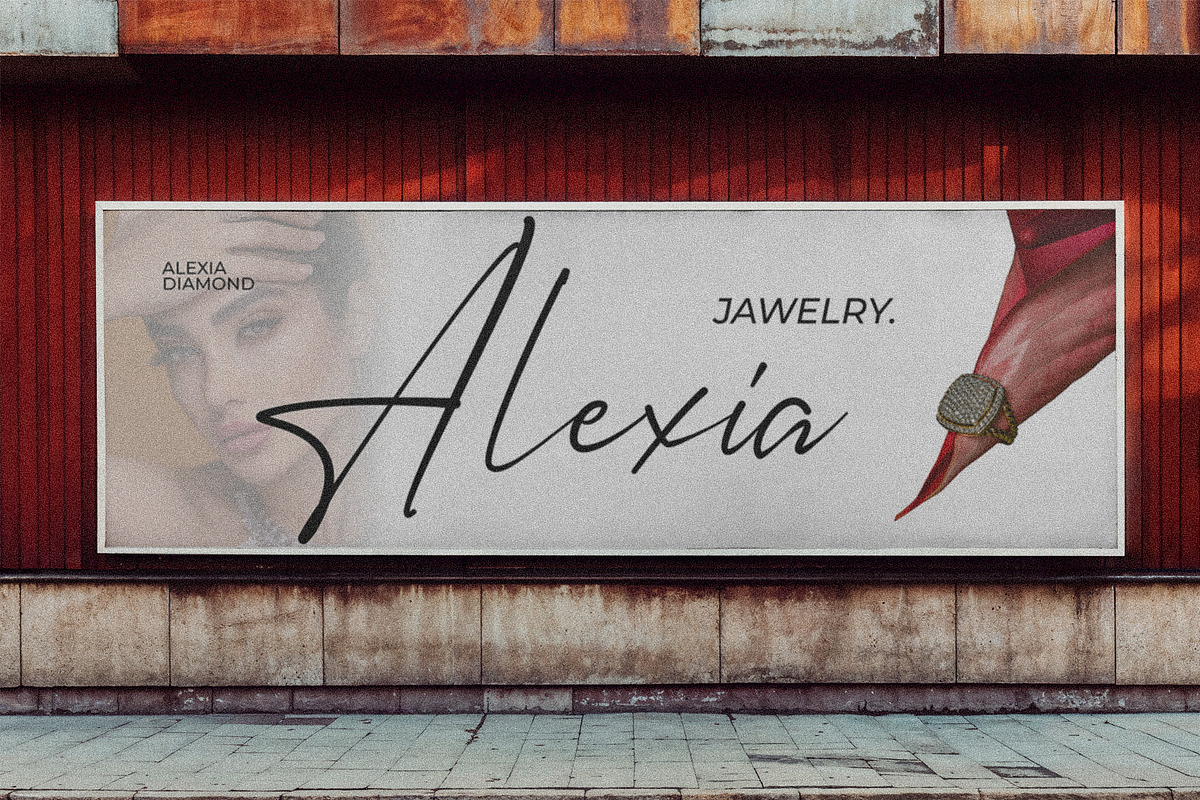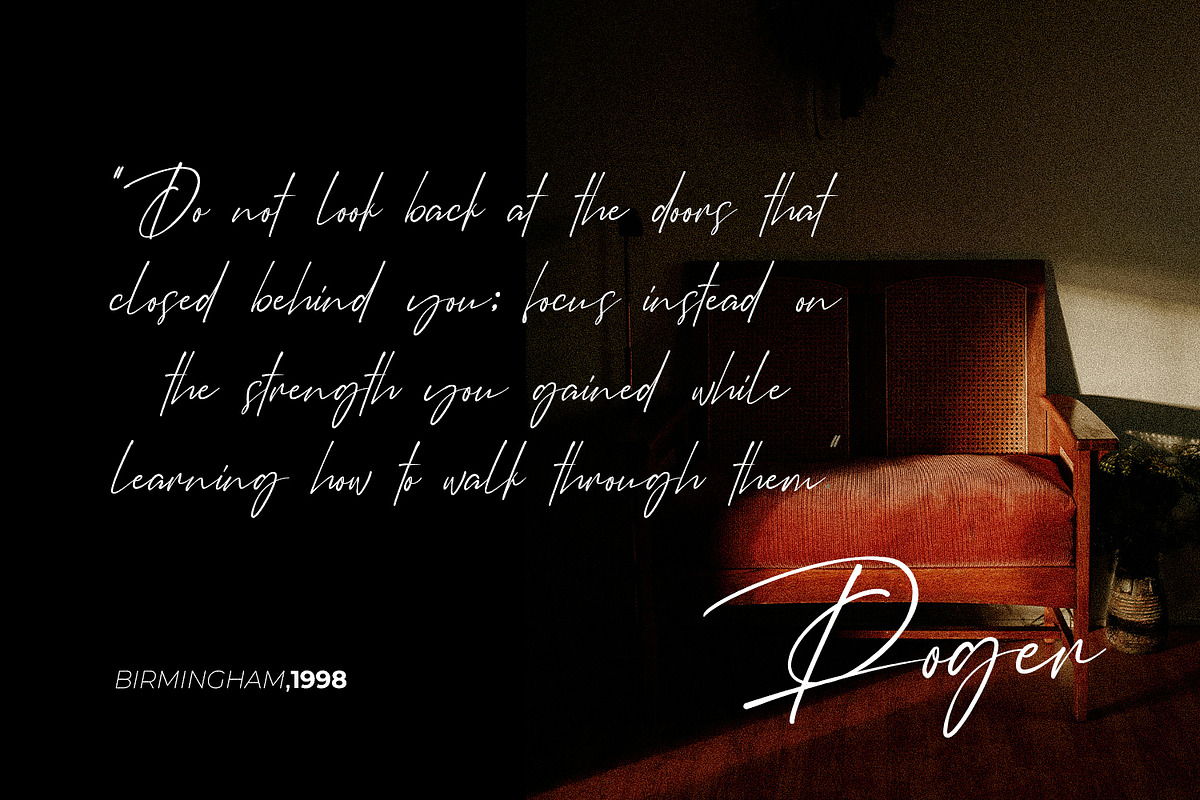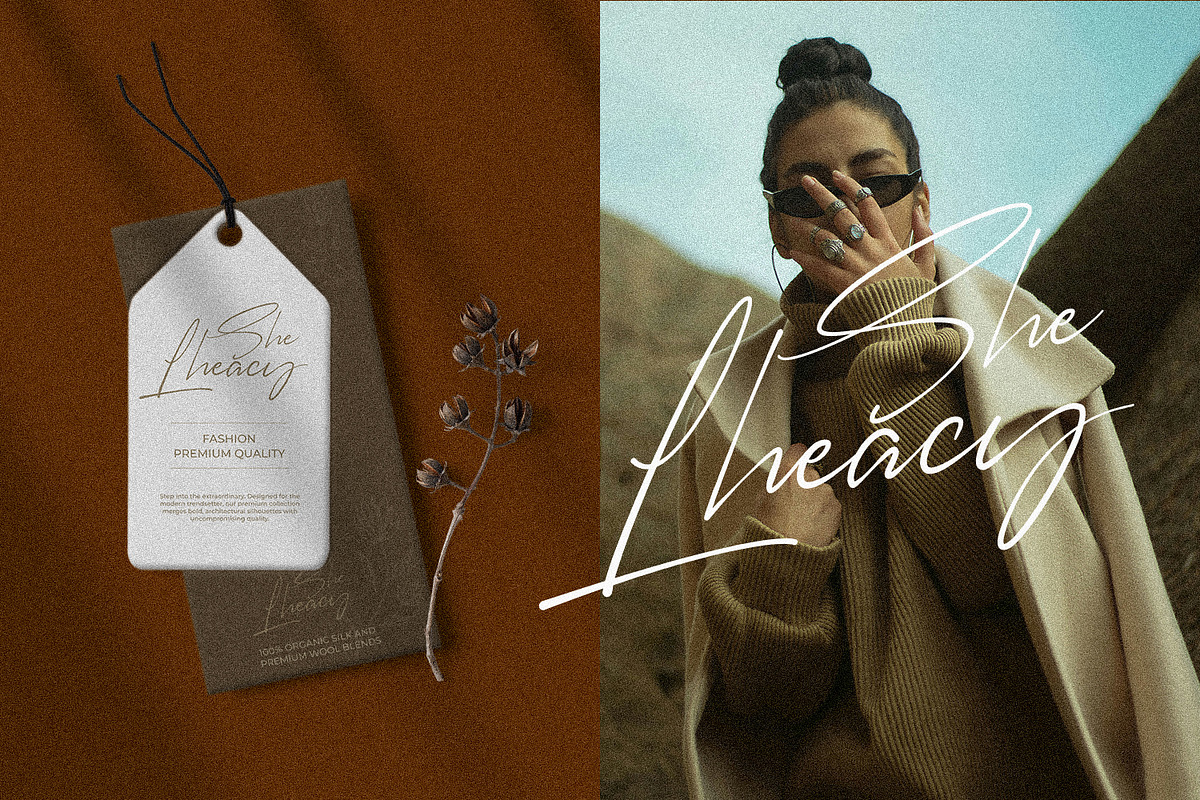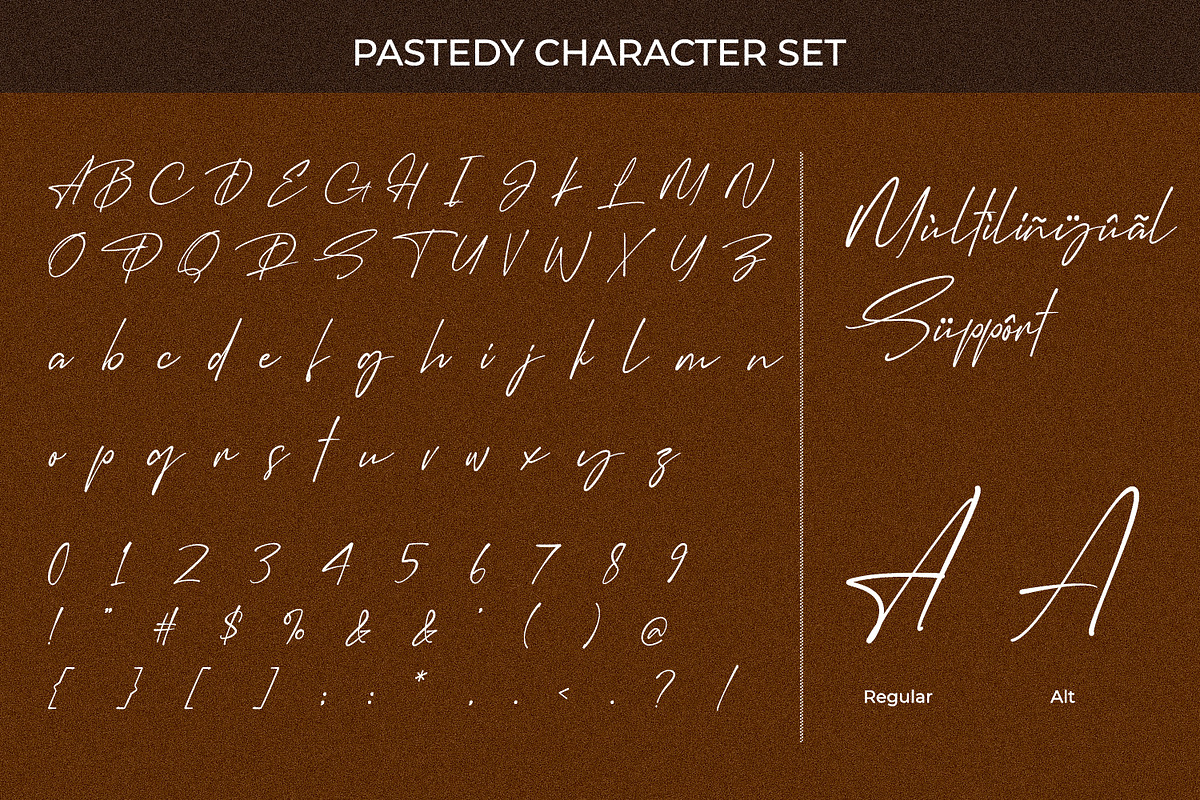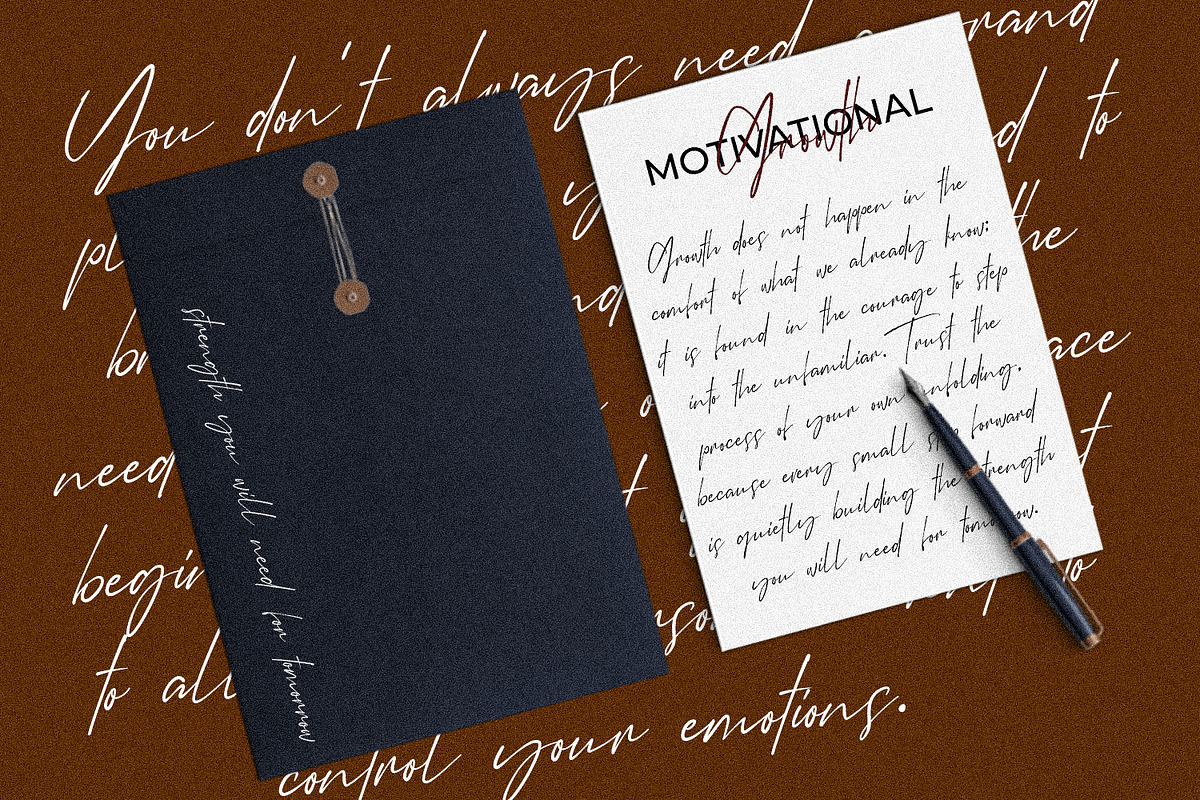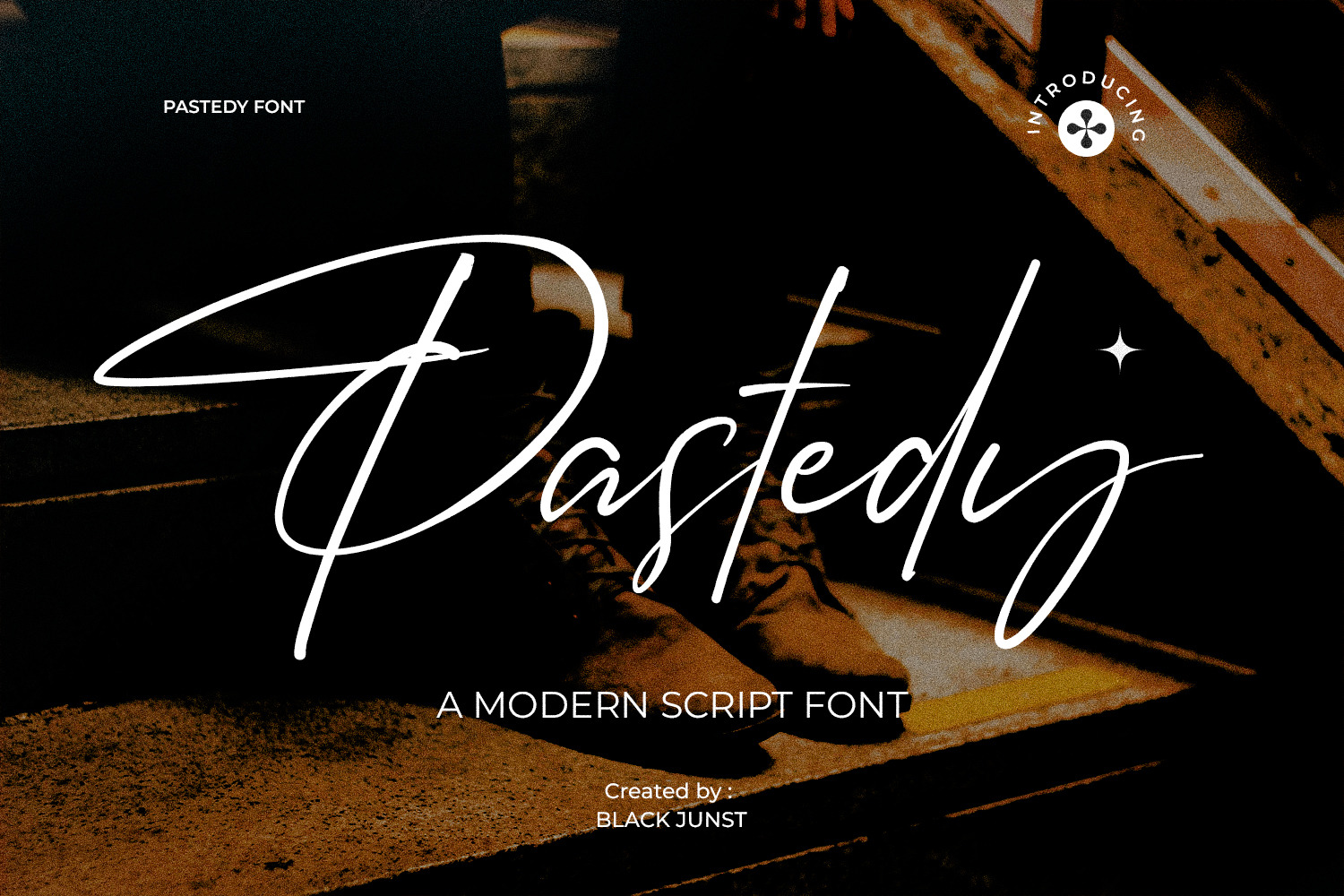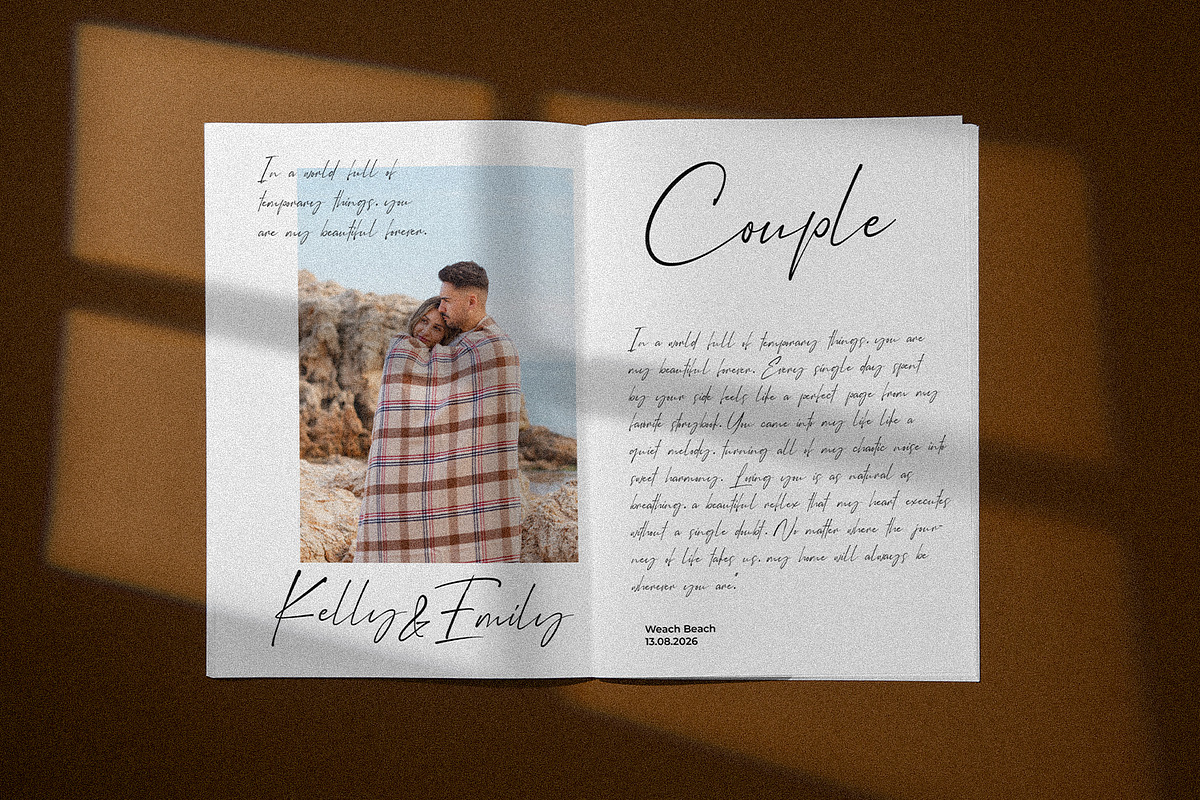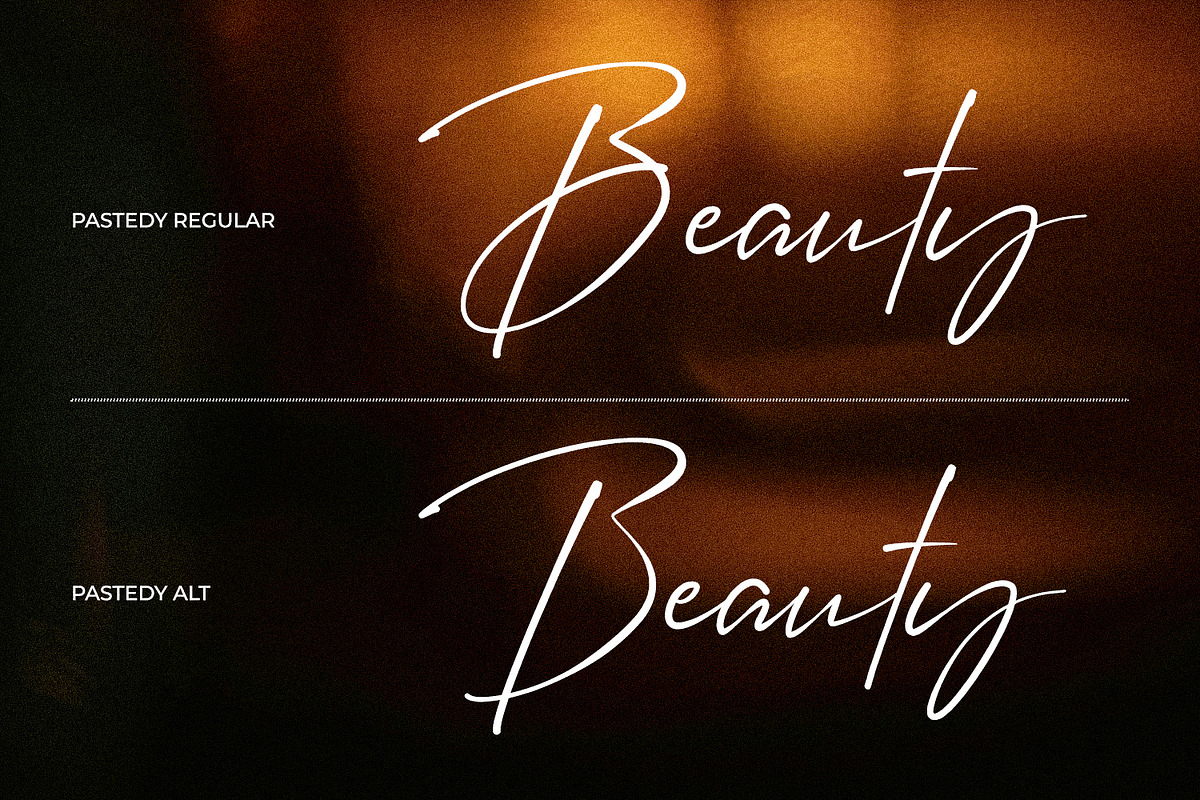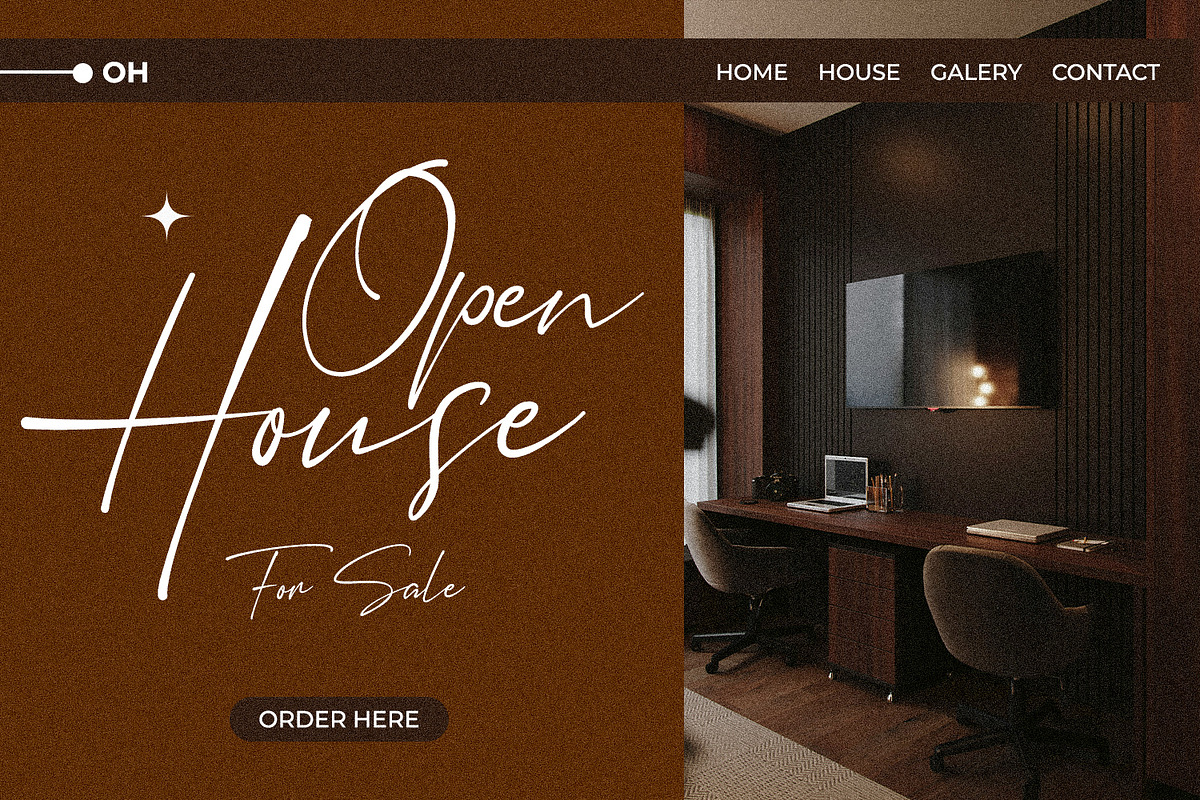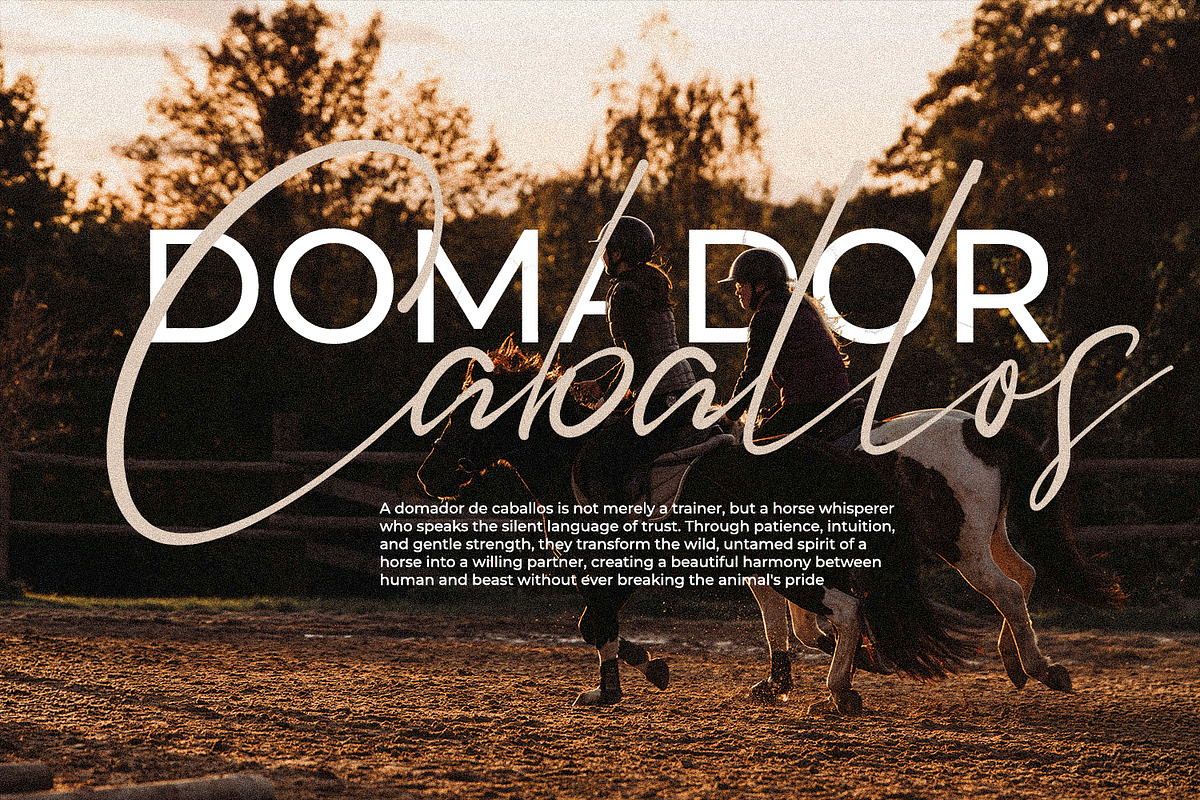
Pastedy – Modern Luxury Script Font
Pastedy is a modern luxury script font that blends elegant handwritten strokes with a clean contemporary aesthetic. Designed with graceful curves, long flowing swashes, and natural signature-style movement, this font instantly elevates logos, branding, fashion labels, beauty products, wedding stationery, social media, packaging, magazine headlines, and premium advertising.
Every character is carefully crafted to deliver a sophisticated handwritten appearance while maintaining excellent readability. The stylish alternates and expressive swashes give designers the flexibility to create distinctive typography for both minimalist and luxurious projects.
Whether you're designing a high-end cosmetic brand, boutique logo, restaurant identity, café menu, clothing label, invitation, photography watermark, or elegant marketing campaign, Pastedy provides a timeless script style that feels modern, professional, and premium.
Smooth Handwritten Flow
Perfect for :
Luxury Branding
Fashion Logo
Beauty & Cosmetic Packaging
Wedding Invitation
Signature Logo
Editorial Design
Social Media Content
Boutique Branding
Restaurant & Café Identity
Photography Watermark
Modern Advertising
Bring elegance, personality, and premium craftsmanship to every design with Pastedy, a modern script font created for designers who want typography that leaves a lasting impression.